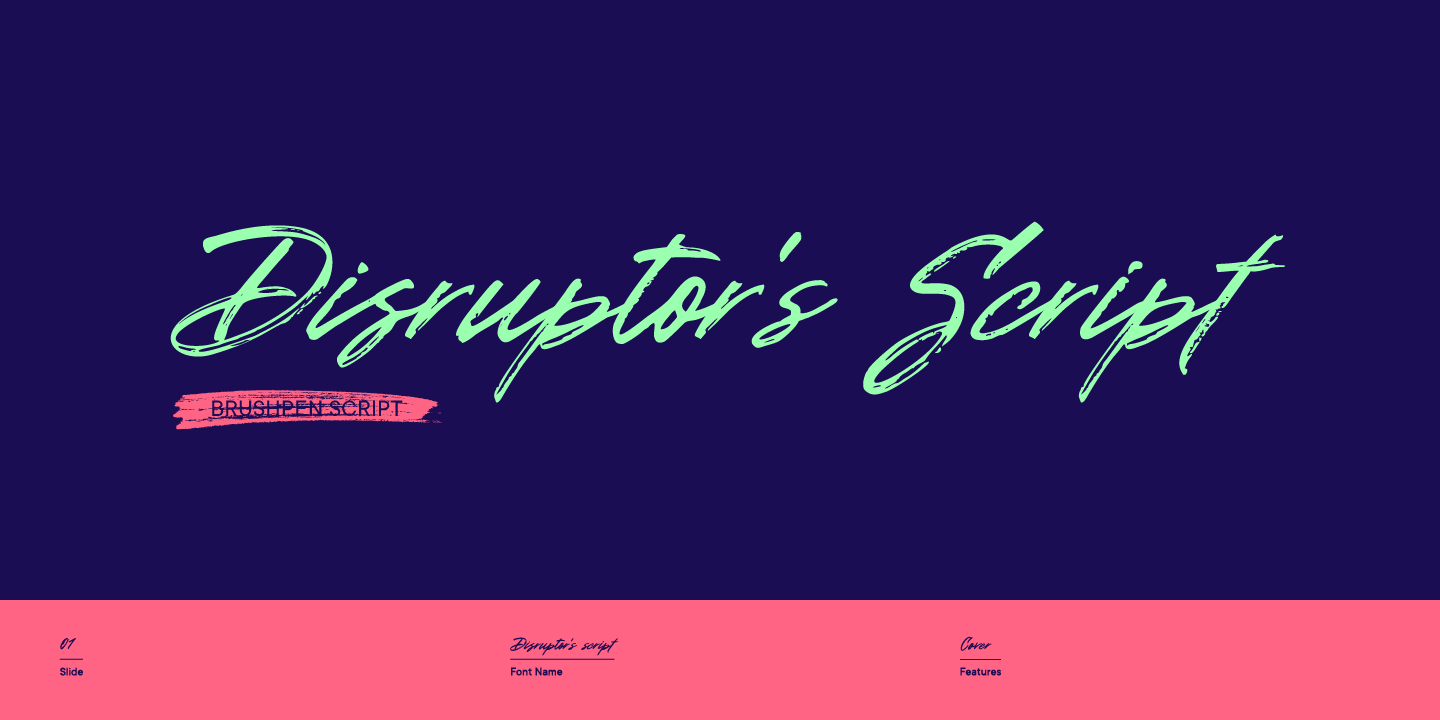
The Disruptor's Script Font is a bold and unconventional typeface, designed to make a rebellious and impactful statement. Unlike traditional elegant scripts, this font often features rough edges, dynamic strokes, or an intentionally imperfect aesthetic, making it an excellent choice for alternative branding, punk-rock inspired designs, streetwear apparel, action-packed movie titles, indie music album art, and gritty social media campaigns. Whether you’re crafting an edgy poster or a brand identity that breaks the mold, this font will inject your project with raw energy and a defiant attitude.
What makes the Disruptor's Script Font so exciting is its audacious departure from conventional script norms. It’s perfect for designers who want to convey rebellion, urgency, or a handmade feel that speaks to a counter-culture aesthetic. This font stands out by offering a powerful visual voice that demands attention, making any text it graces feel dynamic and full of character. Its expressive nature ensures that your message is not just read, but felt, leaving a memorable impression that is anything but ordinary. The deliberate imperfections add to its authenticity, giving it a unique and compelling visual narrative.
The Disruptor's Script Font typically offers a focused range of features to support its distinct style. While specific offerings may vary depending on the font package, you can generally expect to find a Regular weight, often with variations in texture or intensity that enhance its "disruptive" quality. Some versions of the Disruptor's Script Font Free Download might also include alternate characters or ligatures designed to further emphasize its raw, expressive nature, allowing for even greater customization and visual impact. These features ensure that the Disruptor's Script Font can be adapted to almost any design requirement where a bold, unconventional, and impactful statement is desired, maintaining its consistent rebellious charm throughout your project.